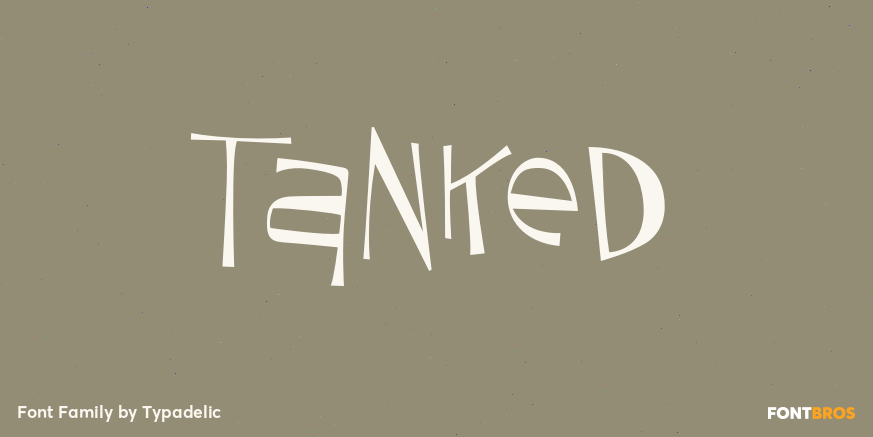
About Tanked
Tanked is one crazy and mixed up font, perfect for any fun project you can think of! Upper and lower case letters are dispersed throughout the font, no need to use caps…just bang away on your keyboard without regard for any typographic rules. Use as…